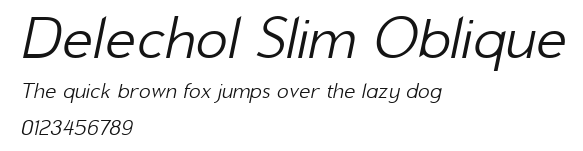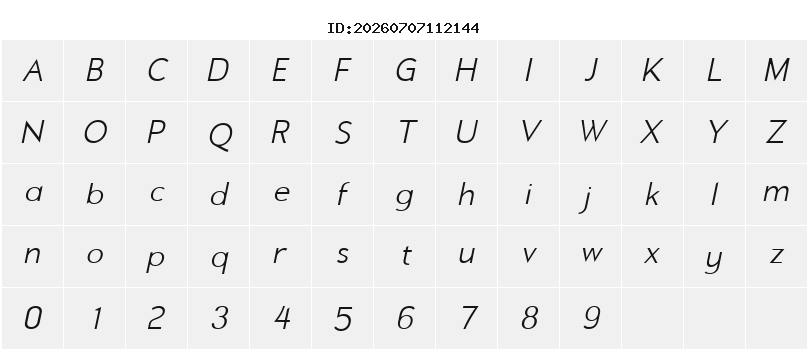
About Delechol Slim Oblique.ttf
Delechol Slim Oblique.ttf is a modern, elegant sans-serif font designed for ultimate readability and visual harmony. Perfect for branding, headlines, web design, and print materials.